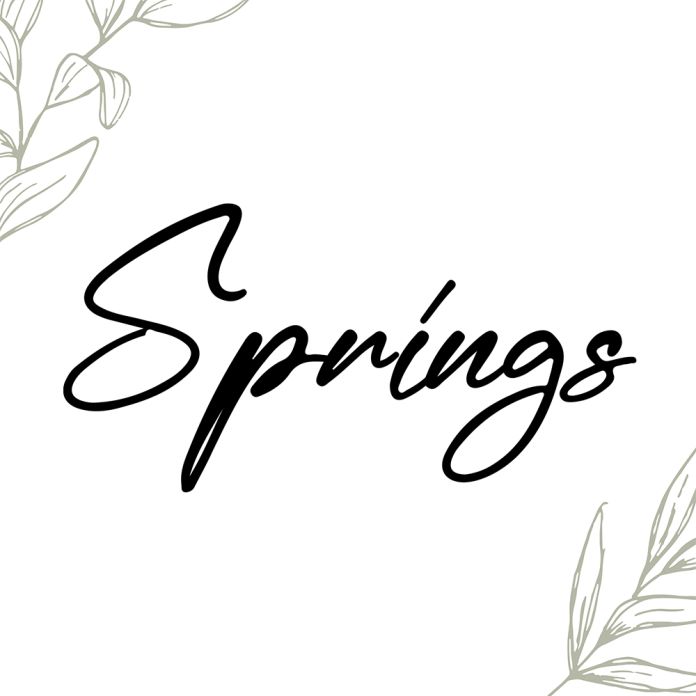
Springs Script is a new, fresh & modern script with a handmade calligraphy style. Batrisyia has decorative characters and a dancing baseline! So beautiful on greeting cards, branding materials, business cards, quotes, posters, and more design concepts!